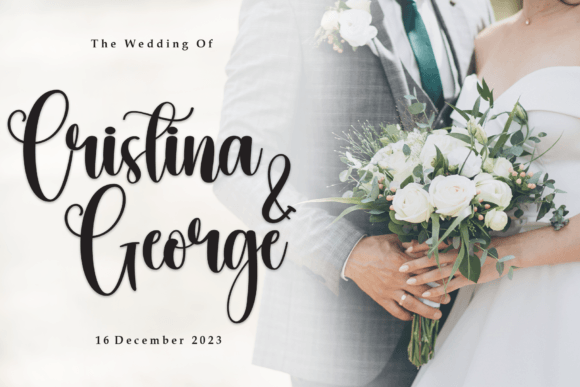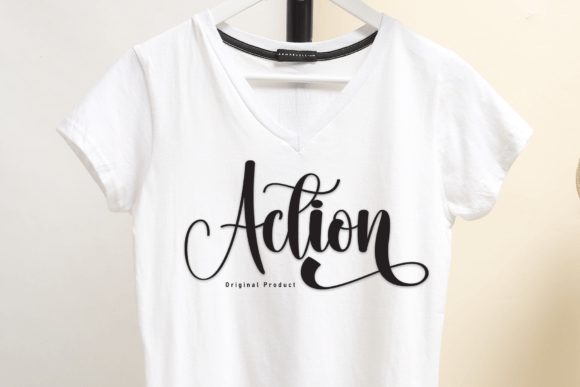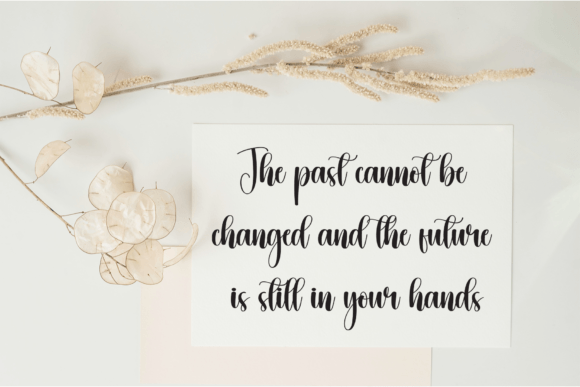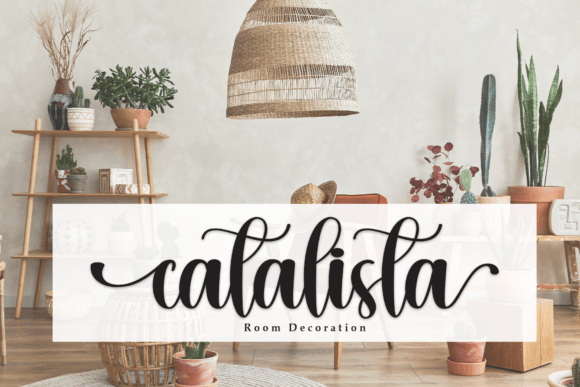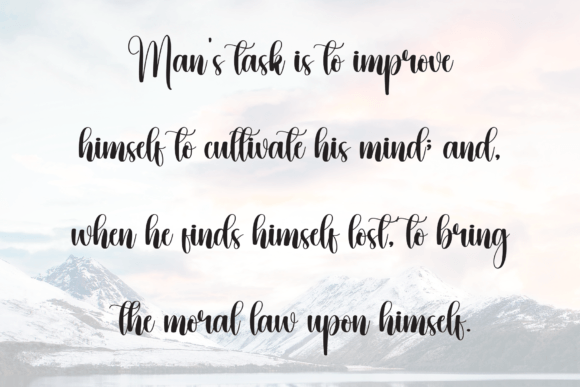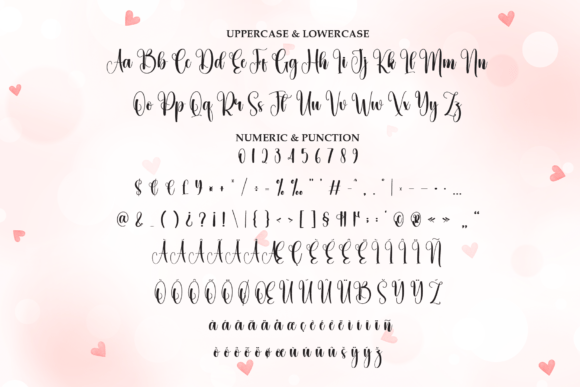
The Perfect Match for Your Next Project: Hello Valentine Font
Have you ever stumbled upon the perfect font at the right moment? It’s like finding that one special ingredient that makes your design come alive. For many designers, this moment is like finding a needle in a haystack, but what if we told you that the Hello Valentine Font could be that magic ingredient?
This enchanting handwritten font is more than just a pretty face – it’s a versatile tool that can elevate any project from a simple greeting card to a stunning headline. With its friendly feel and wide range of applications, the Hello Valentine Font is a valuable addition to any designer’s toolkit. Whether you’re looking to add a touch of whimsy or create a romantic atmosphere, this font is sure to make your next project a success.
Hello Valentine Font Key Features
- Unique Characteristics: Hello Valentine Font features a unique, hand-drawn design with a mix of cursive and script elements, adding a touch of elegance and whimsy to any text-based design.
- Style Options: Hello Valentine Font comes with multiple style options, including Regular, Italic, Bold, and Bold Italic, allowing for a range of tonal expressions and emphasis.
Designer Review: Hello Valentine Font
Overall, I think the Hello Valentine Font is a charming addition to any design project, especially those focused on love and relationships. ✨ The font’s whimsical feel and vintage aesthetic make it perfect for creating a romantic ambiance.
The Hello Valentine Font has a few notable strengths, including:
- Its unique and intricate design elements, which add a touch of elegance to any text.
- The font’s ability to convey a sense of nostalgia and sentimentality, making it ideal for Valentine’s Day or anniversary projects.
- The font’s versatility, as it can be used for a range of applications, from greeting cards to social media graphics.
- The font may be too ornate for certain designs, potentially overwhelming the message or content.
- The font’s readability can be affected by the size and color of the text, so it’s essential to test it carefully.
Overall, I think the Hello Valentine Font is a lovely addition to any designer’s toolkit, but it’s crucial to use it thoughtfully and consider the project’s context and message.
Practical Application Guide: Hello Valentine Font
The Hello Valentine Font is a beautiful script font perfect for Valentine’s Day, weddings, and other romantic occasions. Use it to create beautiful invitations, cards, and social media graphics. To get the most out of this font, use it in combination with bold, playful graphics and pastel colors.
Project 1: Hand-Drawn Valentine’s Day Cards
Create unique and personalized Valentine’s Day cards using the Hello Valentine Font. This font’s whimsical and playful style is perfect for adding a touch of hand-drawn charm to your cards.
Project 2: Customizable Valentine’s Day Invitations
Create customizable Valentine’s Day invitations using the Hello Valentine Font. This font’s versatility makes it perfect for creating invitations that are both elegant and playful.